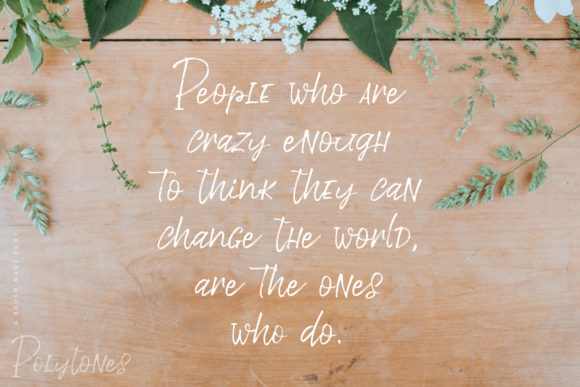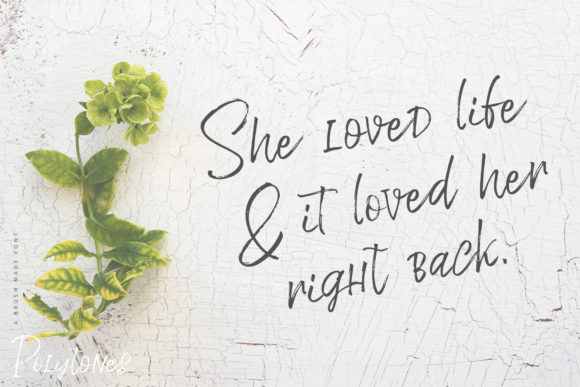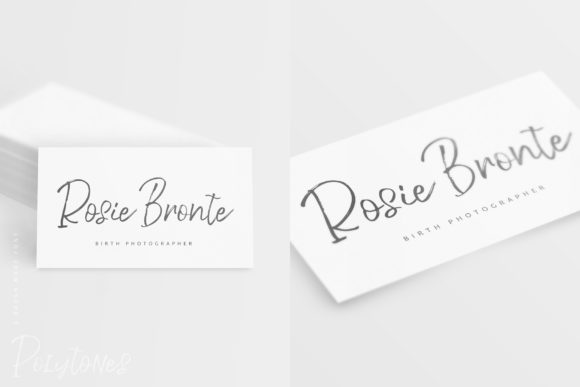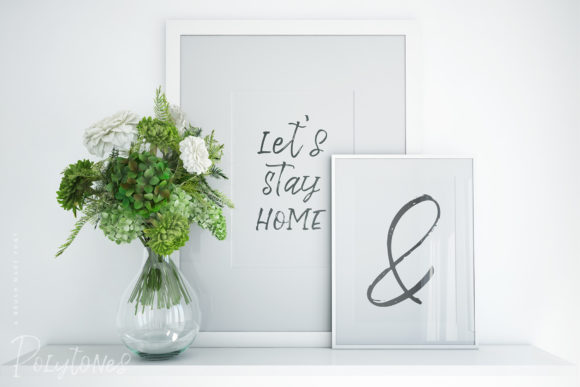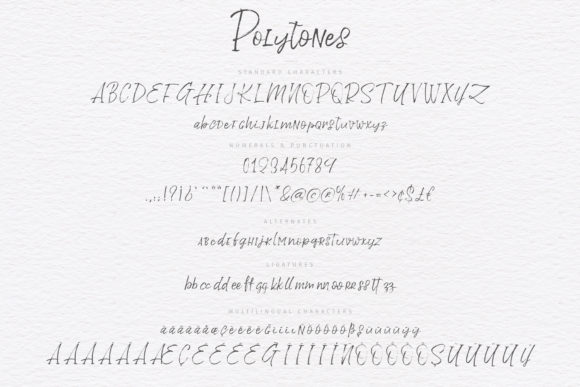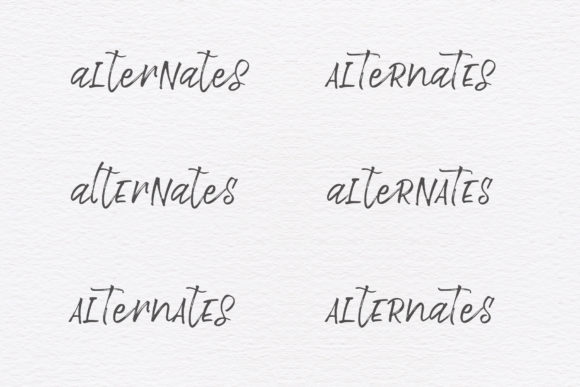
Introduction to Polytones Font
Do you remember that moment when you’re working on a creative project and you stumble upon a design resource that completely transforms your vision? For designers, this feeling is a game-changer. It’s the moment when everything falls into place, and the design starts to shine. This is exactly what happens when you discover the Polytones Font.
Handcrafted with an exceptional brush pen, the Polytones Font is a timeless and elegant handwritten font that will take your designs to the next level. With its delicate feel and high-quality strokes, it’s the perfect addition to any design project. Whether you’re working on a branding project or creating a stunning visual content, the Polytones Font is an invaluable resource that will elevate your designs to new heights.
But what truly sets the Polytones Font apart is its versatility. From its smooth and flowing lines to its transparent background options, this font is a free download that will give you endless possibilities to experiment and create. So, get ready to fall in love with the Polytones Font and discover the incredible potential it holds for your creative projects.
Key Features of Polytones Font
- High-quality design resource ideal for creative projects, offering a unique and eye-catching aesthetic.
- Designed to be highly legible, with clear and crisp typography that’s perfect for use in a variety of contexts.
Honest Review: Polytones Font
I recently stumbled upon the Polytones Font, a design resource that caught my attention with its unique style and versatility. After exploring its features, I’m excited to share my honest review with you.
What works well: ✨ The Polytones Font offers a high-quality design that’s perfect for creative projects requiring a touch of sophistication. Its transparent background makes it easy to customize and blend with various backgrounds. Additionally, the font is available for free download, making it an excellent choice for designers on a budget.
- Unique and sophisticated design style
- High-quality graphics
However, I did encounter some limitations: ⚠️ The font’s versatility is somewhat limited by its lack of diversity in font styles. Additionally, some users may find the font’s design too minimalist, which may not suit all design projects.
Overall, I’m impressed with the Polytones Font’s potential as a design resource. While it may not be perfect, its unique style and high-quality design make it a great choice for creative projects. If you’re looking for a sophisticated font to elevate your design, the Polytones Font is definitely worth checking out.
Polytones Font is a high-quality, free download design resource that can elevate any creative project. With its unique style and versatility, this font is perfect for designers looking for a fresh and modern look.
Tips for Getting the Most Out of Polytones Font
- Use the font with a transparent background for a modern and sleek look.
- Combine the font with other design elements, such as images and graphics, to create a unique and eye-catching design.
Polytones Font is perfect for a variety of design projects, including:
- Print design and advertising